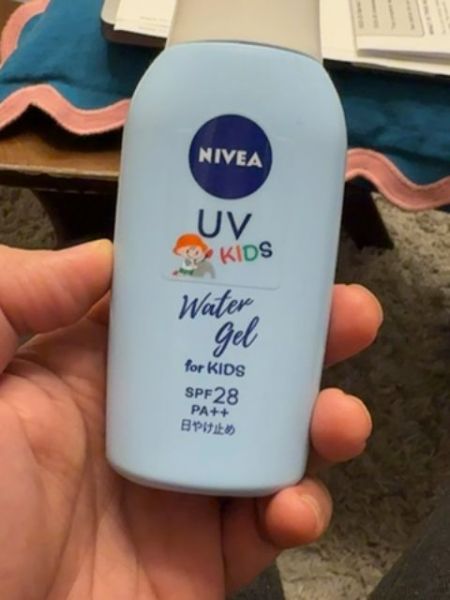
Nivea UV Kids Water Gel
A sunscreen gel designed for children, providing SPF 28 protection against UV rays.
The typography combines a bold, sans-serif font for the Nivea logo, providing brand recognition, with a casual, handwritten style for 'Water Gel' to create a friendly, approachable feel. The typefaces are easy to read, reflecting clarity and simplicity suitable for a child's product.
The packaging is a sleek, compact bottle designed for easy handling and portability. It features a soft blue color, appealing to children and parents alike, with playful graphics.
- Contains SPF 28 for sun protection.
- Formulated specifically for children.
- Offers PA++ protection against UVA rays.